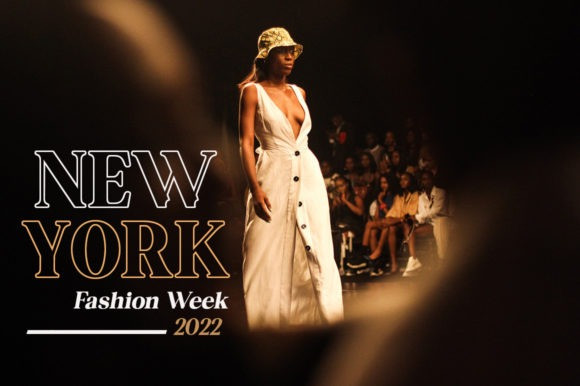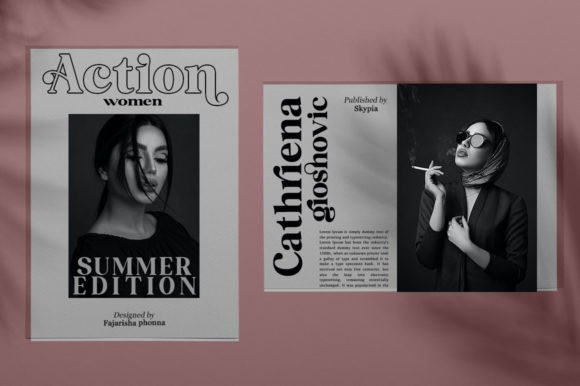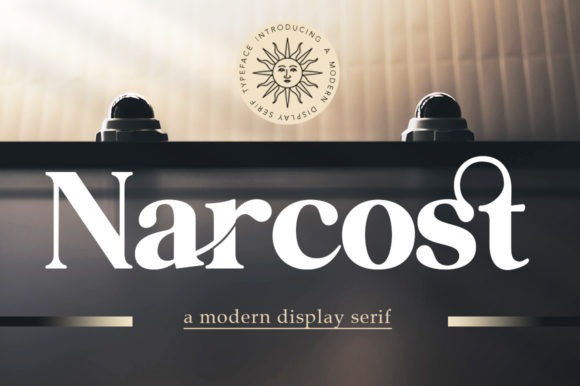
Narcost Font
Narcost Font is a cool, bold and thick lettered serif font. It is PUA encoded which means you can access all glyphs and swashes with ease! Add it confidently to your projects, and you will love the results.